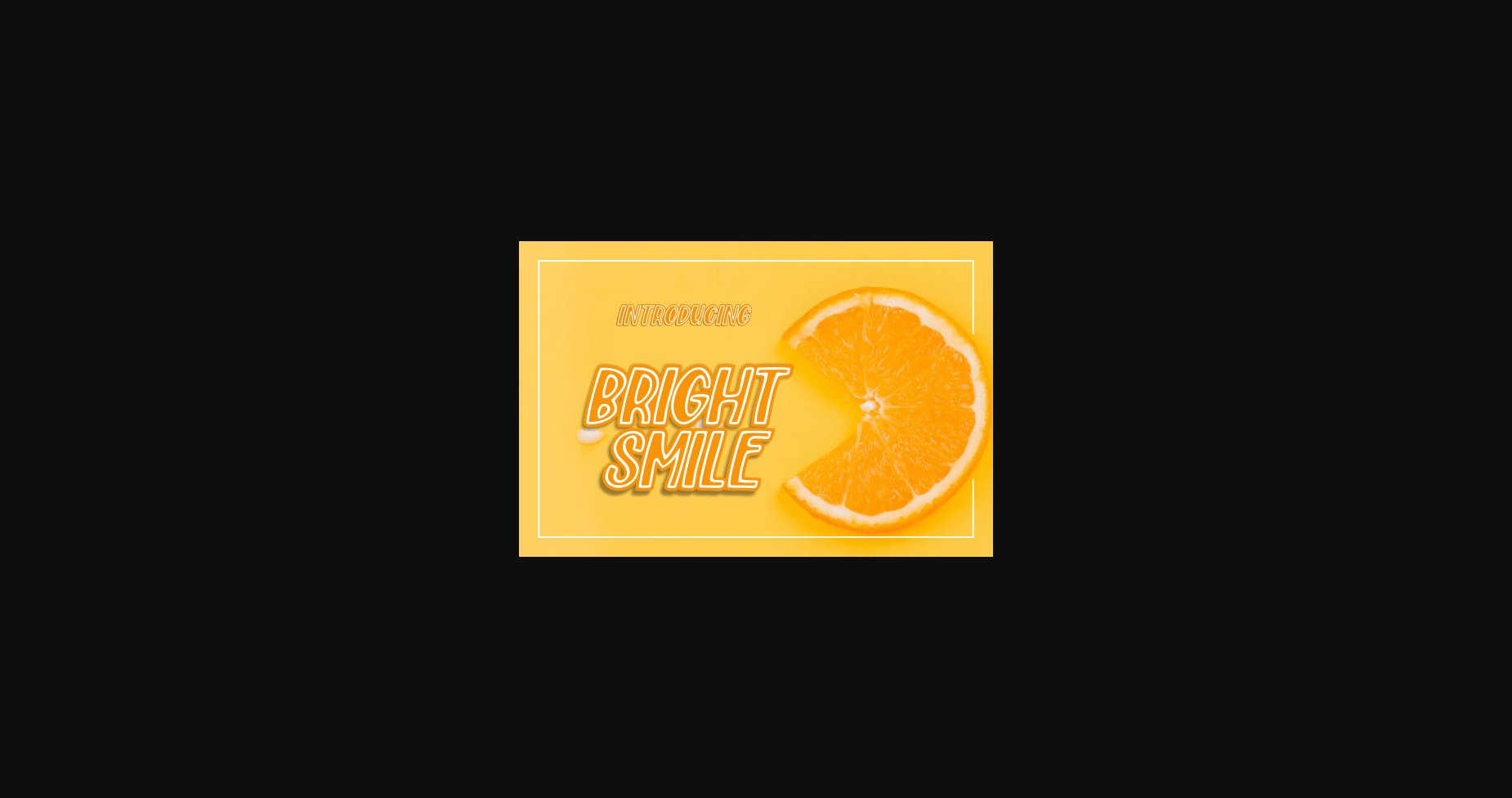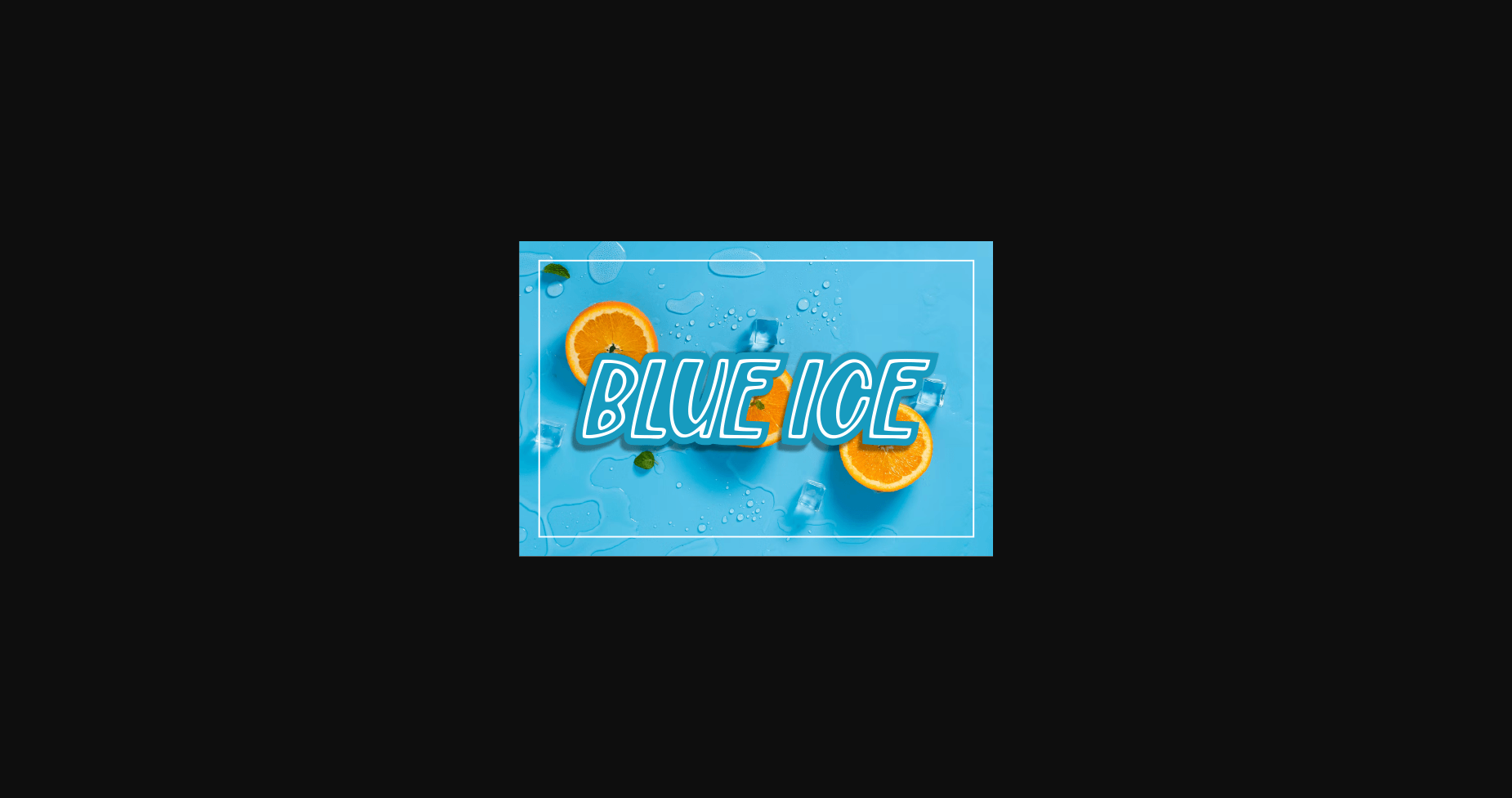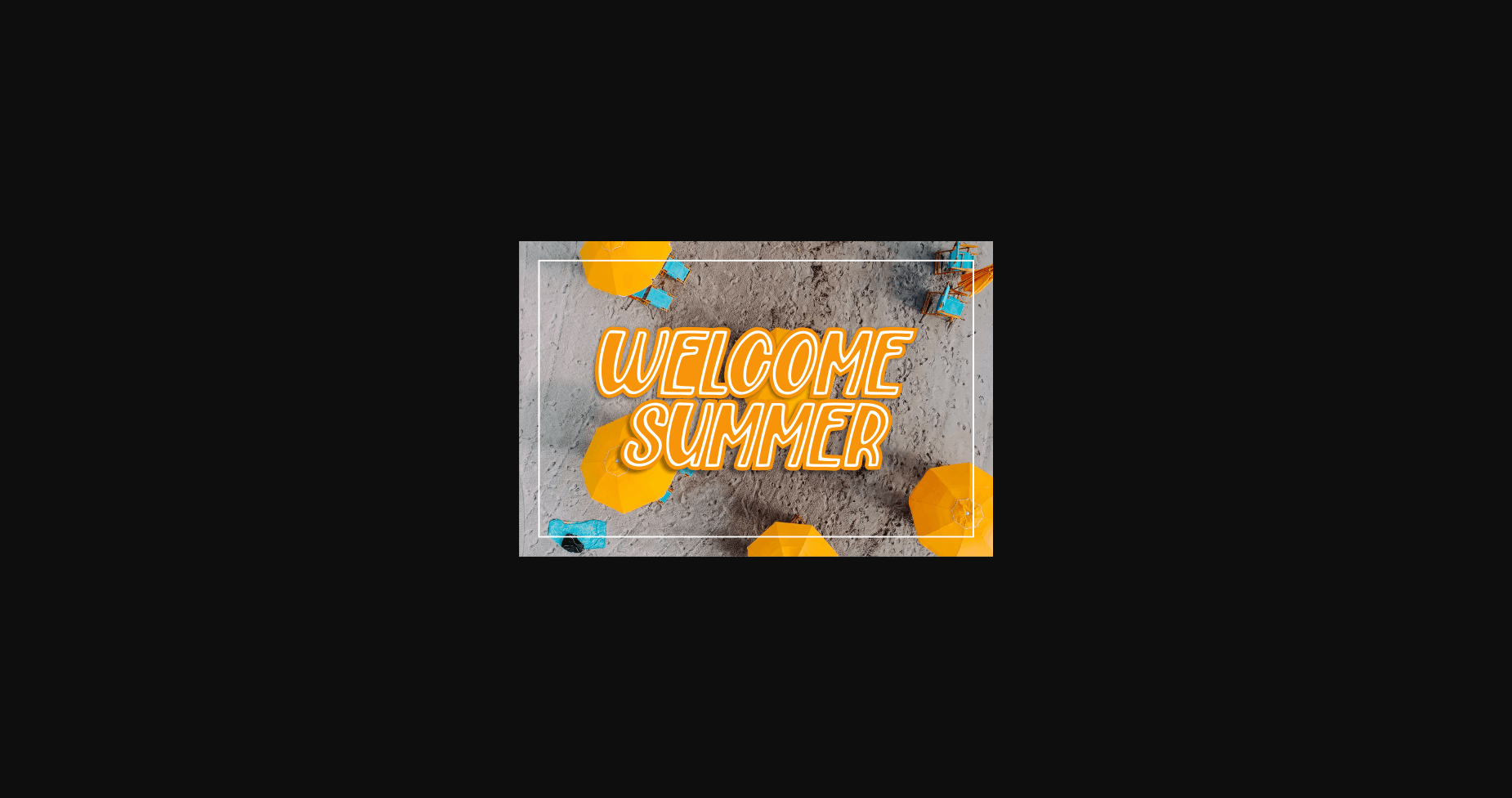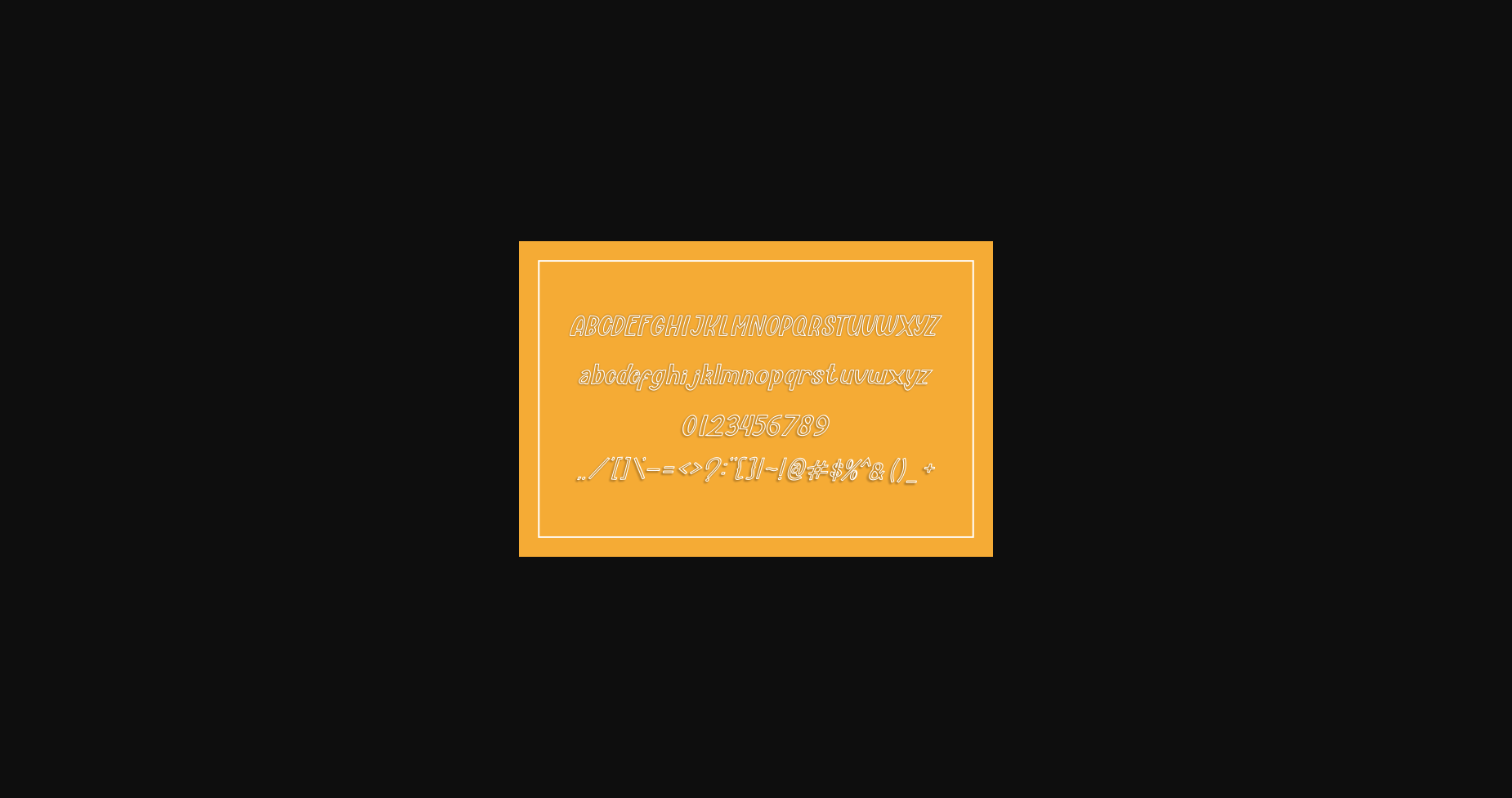
About Bright Smile Font
Bright Smile is a cool and unique font. It has a modern yet whimsical style and it will undoubtedly immerse your designs into a fun and bright world.